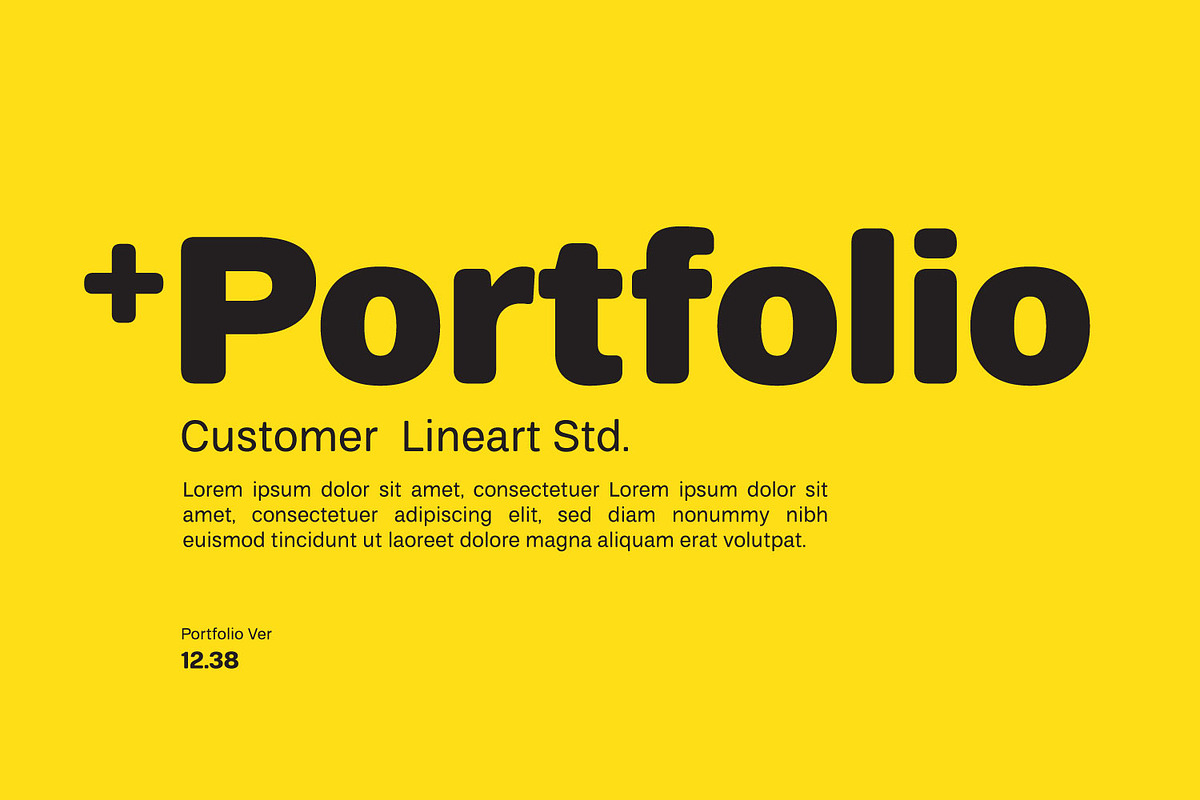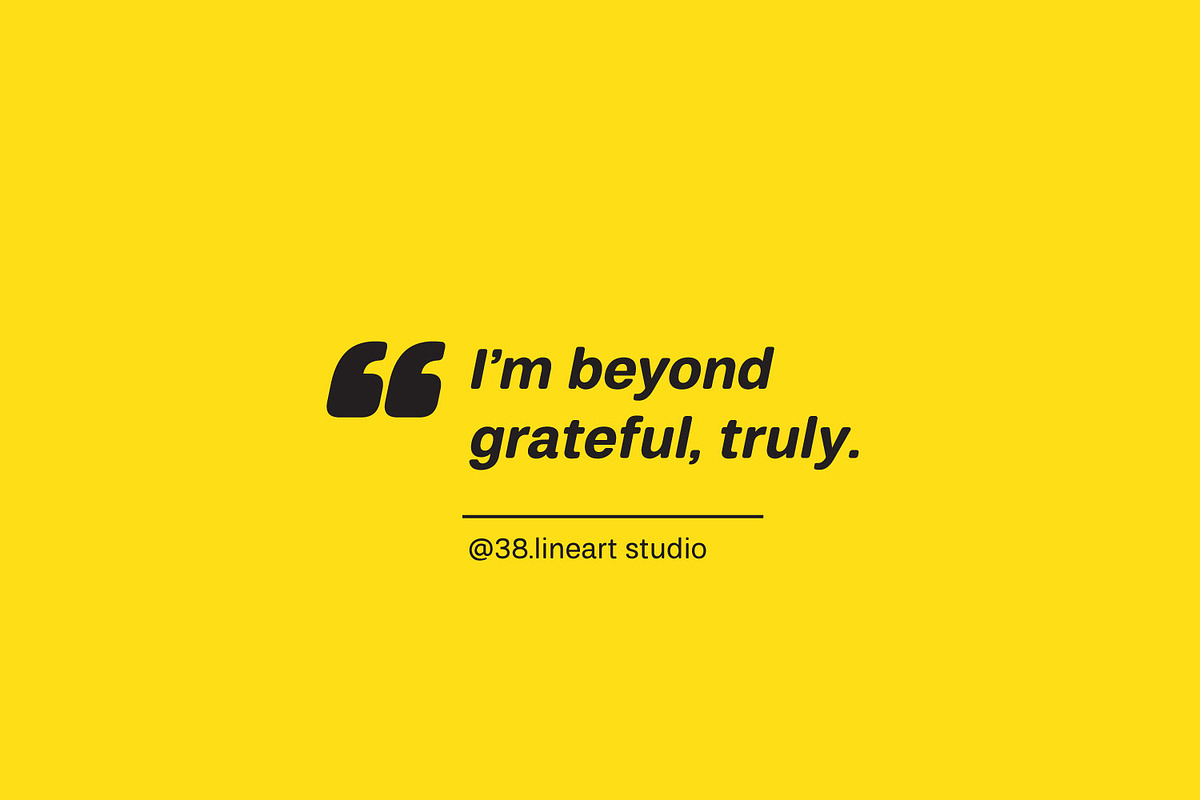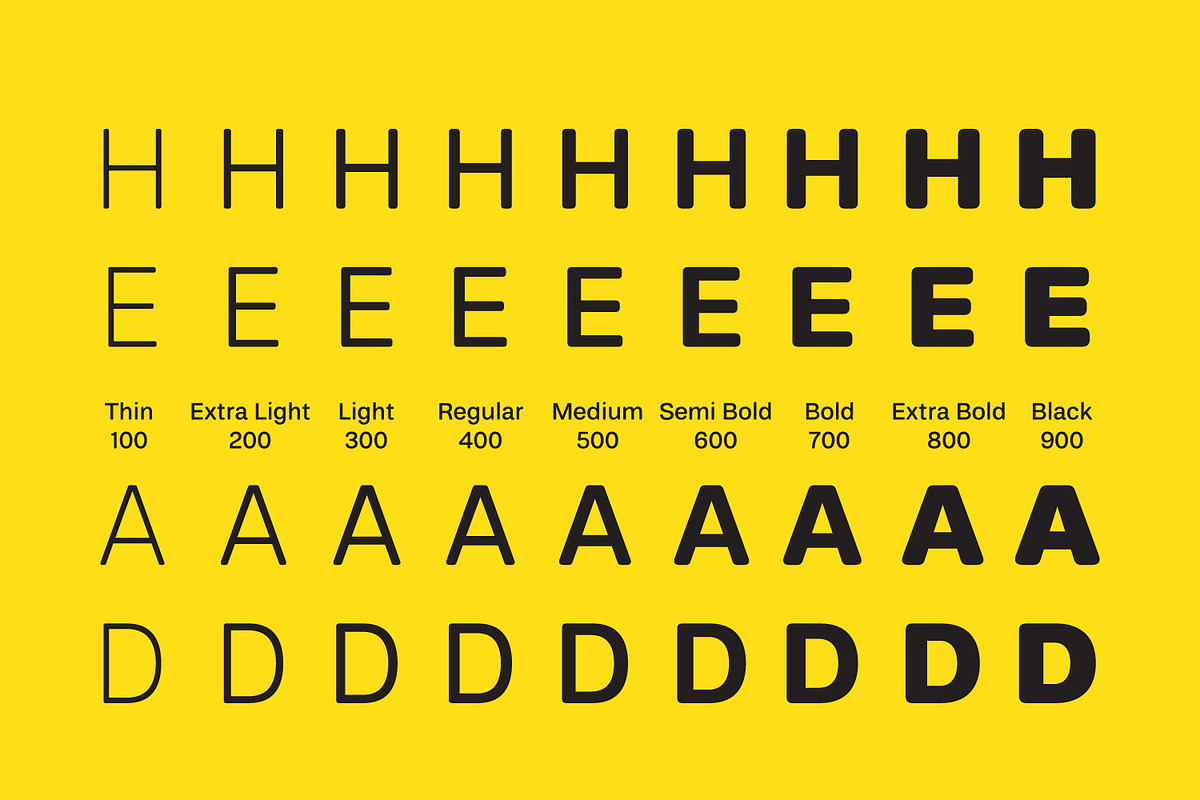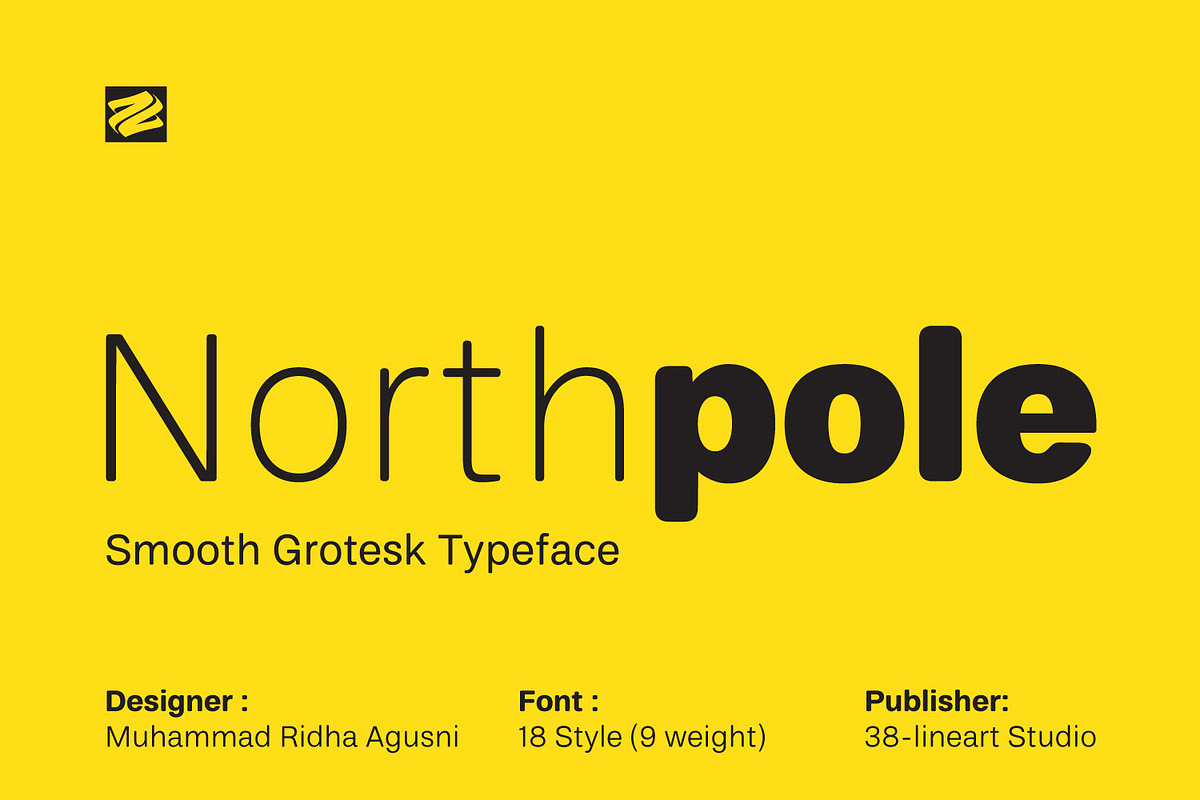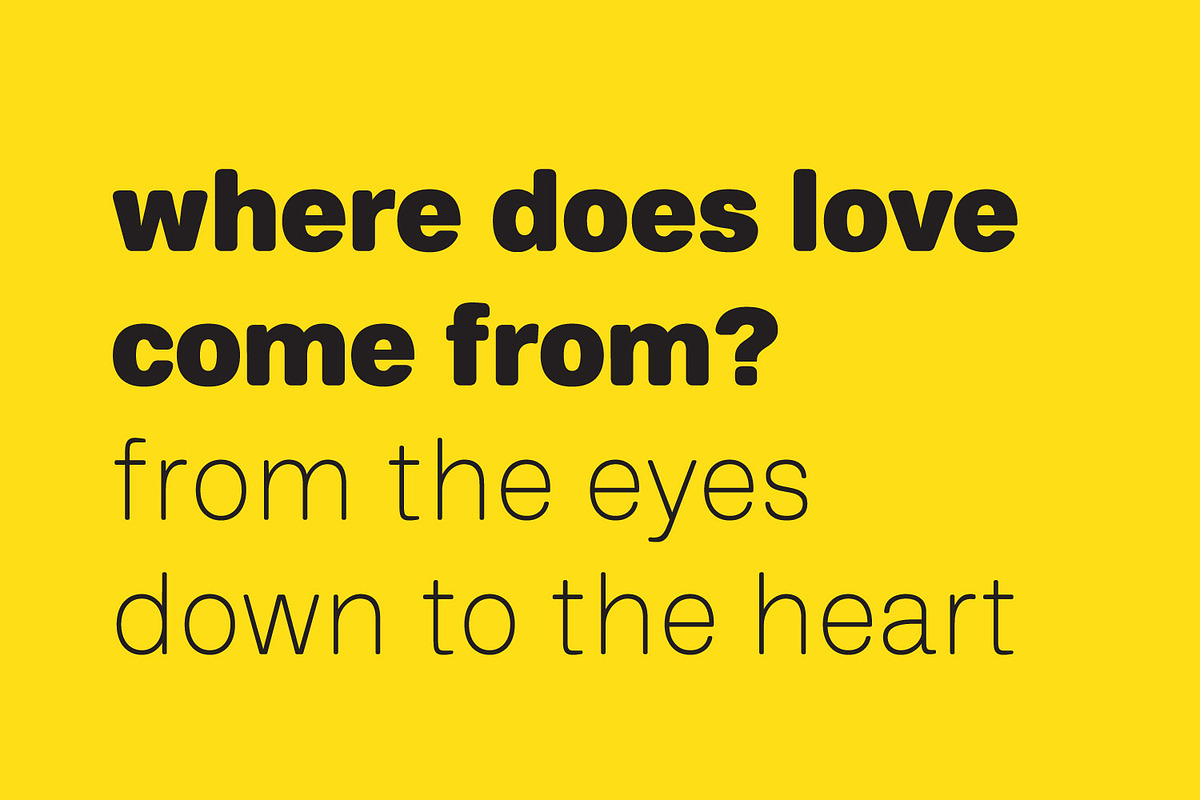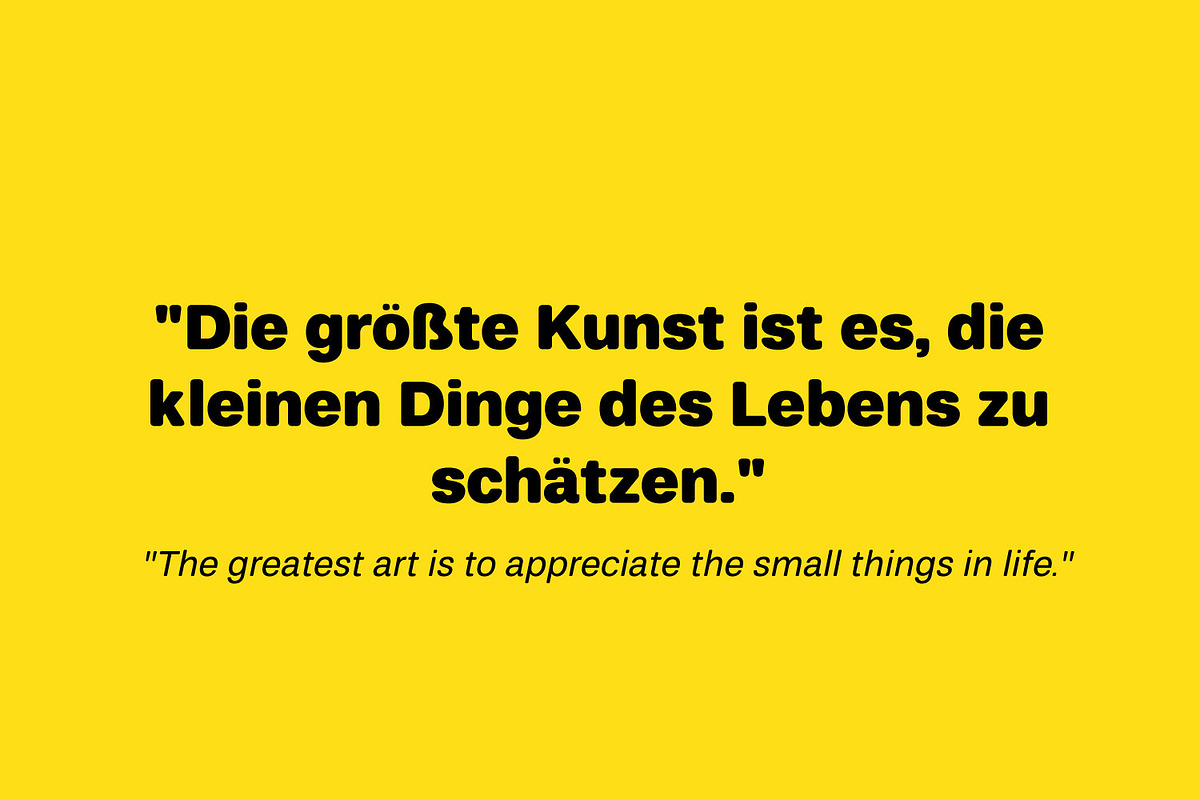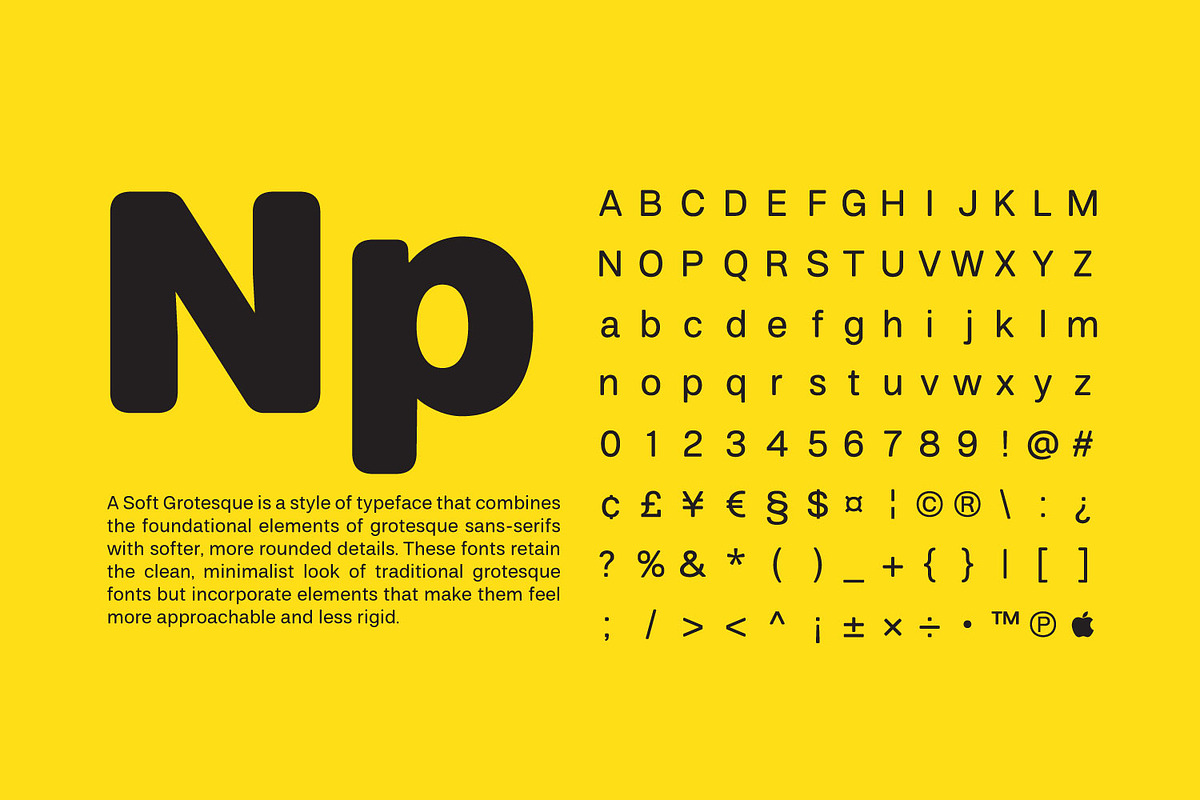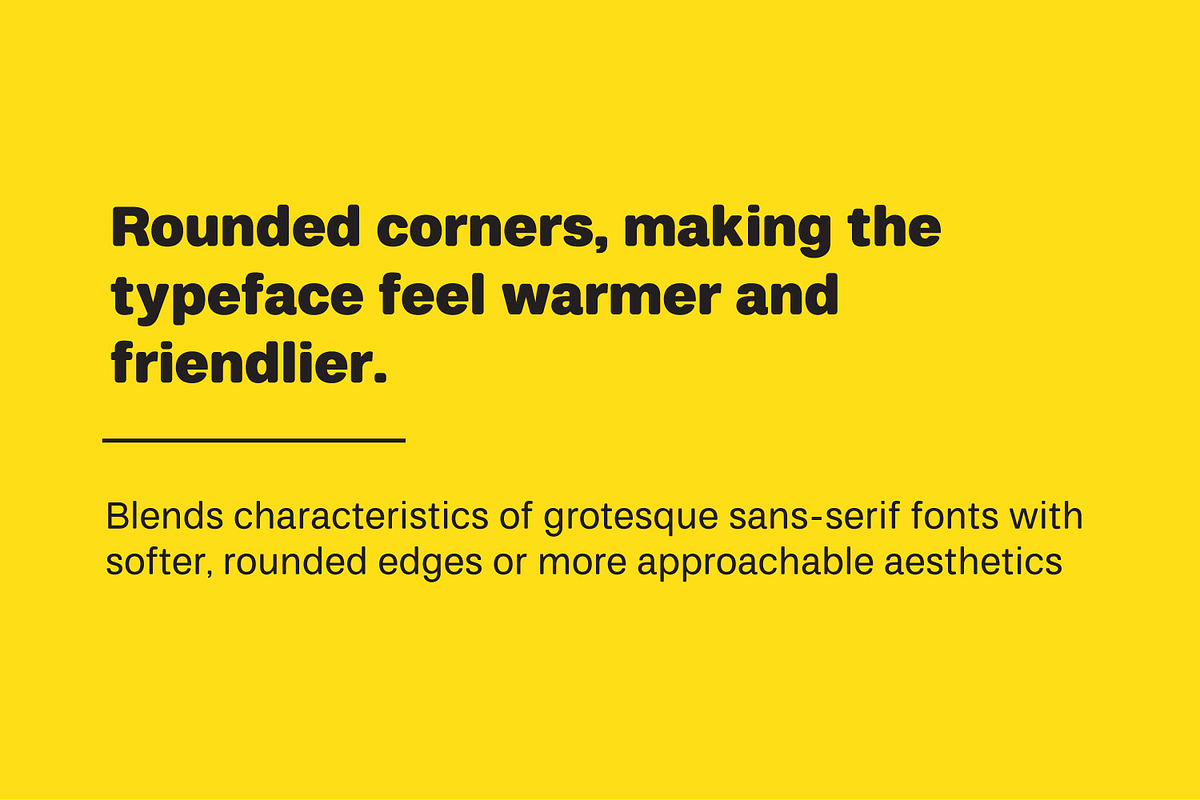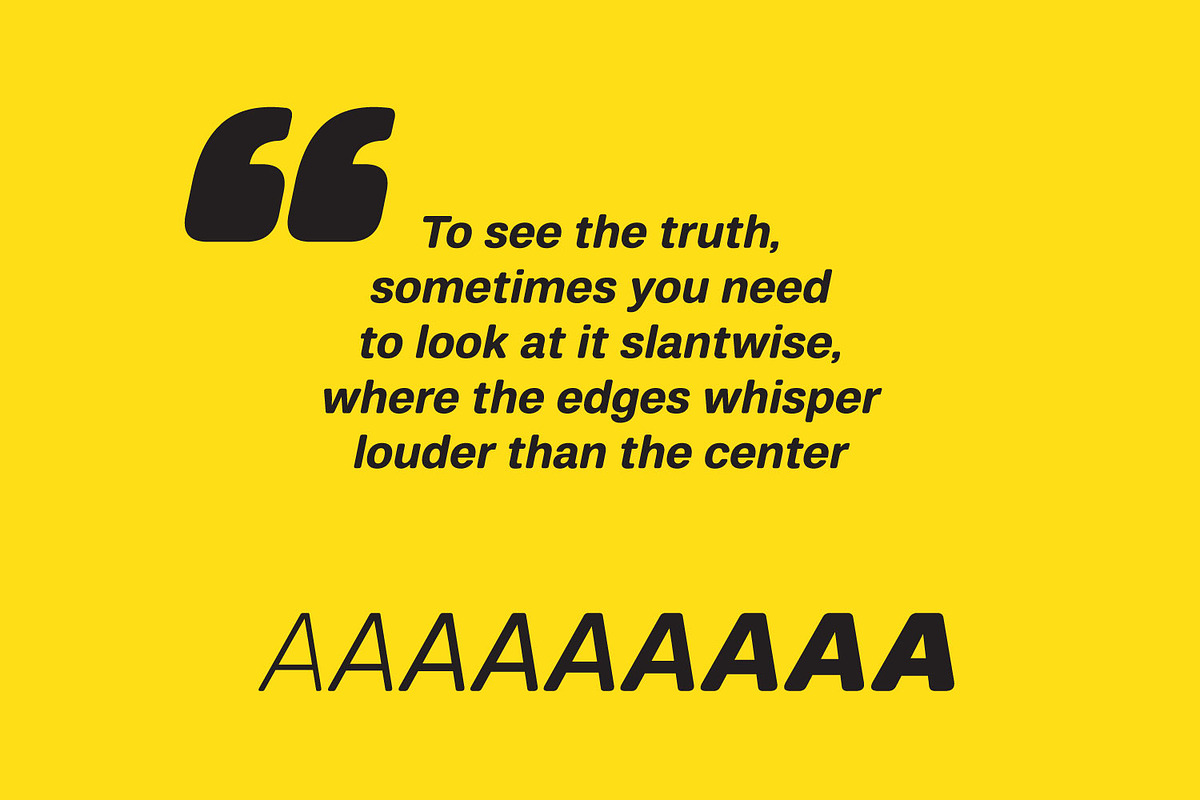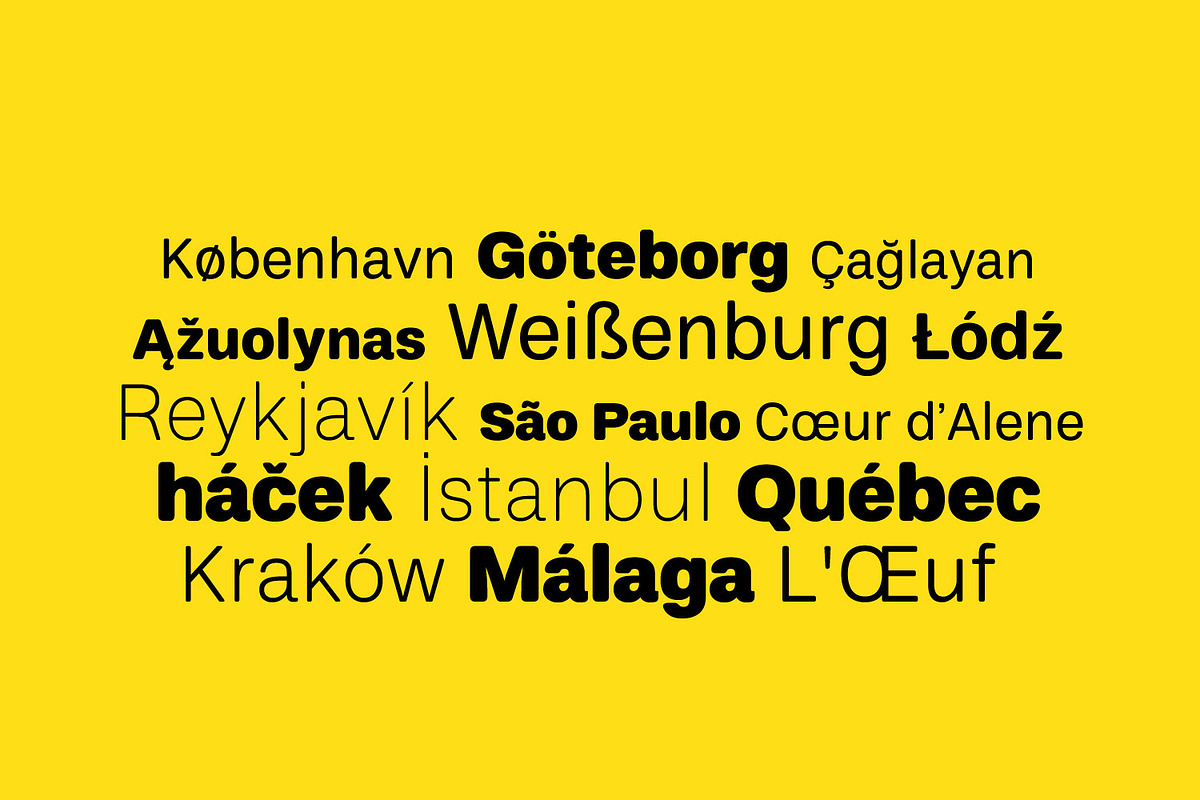
Northpole - Smooth Grotesk
Northpole is a smooth grotesque typeface that blends the structured characteristics of classic grotesque sans-serifs with a softer, more approachable aesthetic. Designed with rounded corners, it exudes warmth and friendliness, making it ideal for designs that require both modernity and a welcoming touch. With 18 styles spanning 9 weights, Northpole is a versatile choice, whether you’re crafting bold headlines or creating clean, readable body text. Its carefully crafted details and minimalist design ensure it fits a wide range of applications, from branding and packaging to digital interfaces. This typeface invites you to explore the balance between structure and softness, delivering a design experience that’s both professional and approachable.